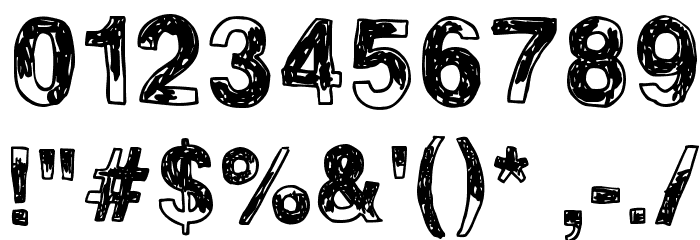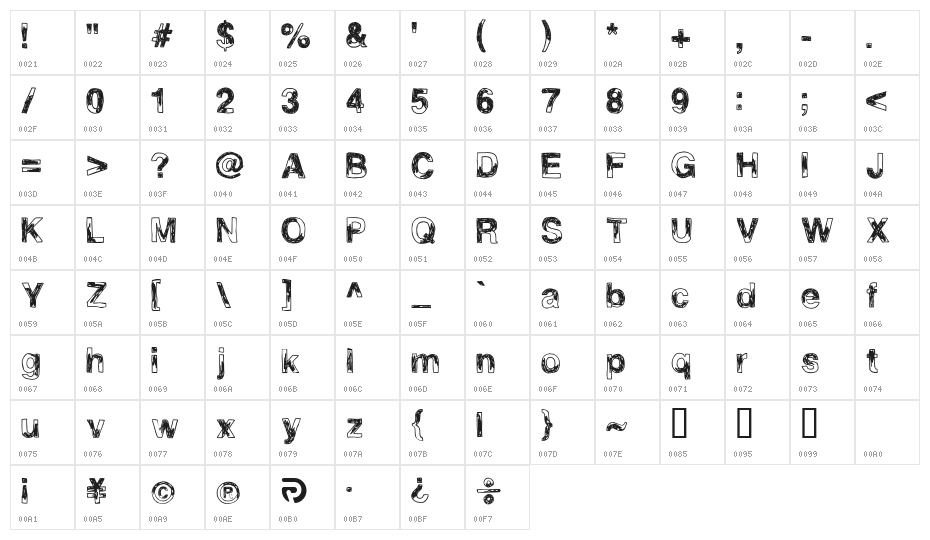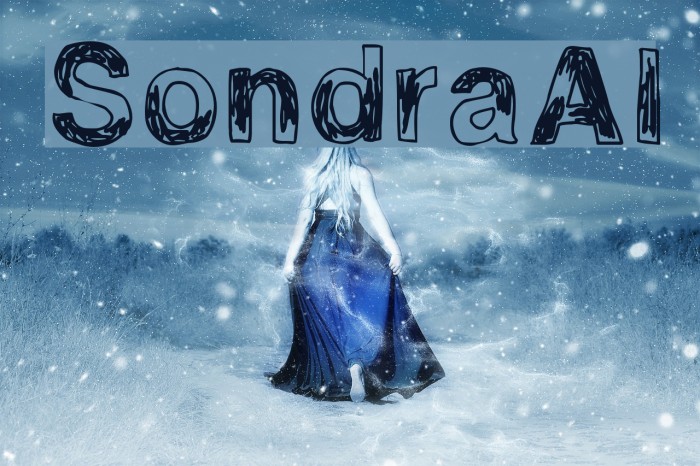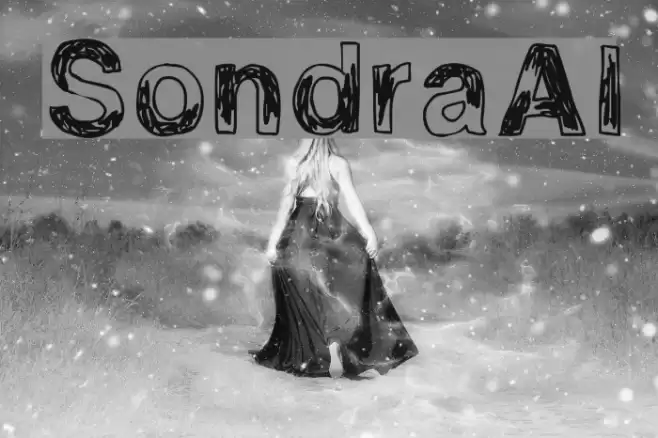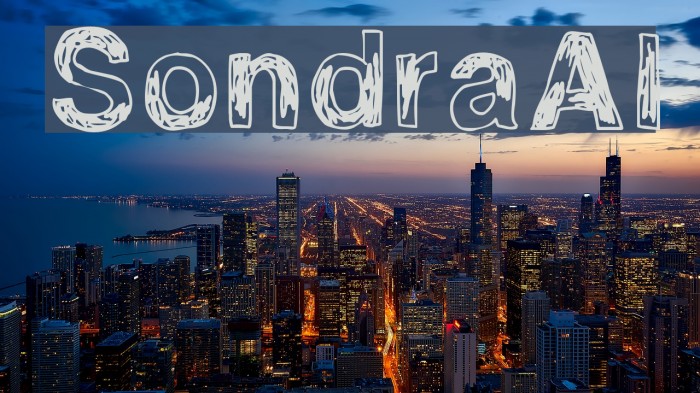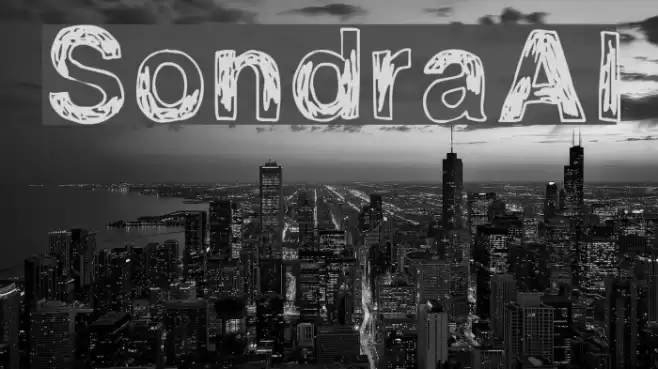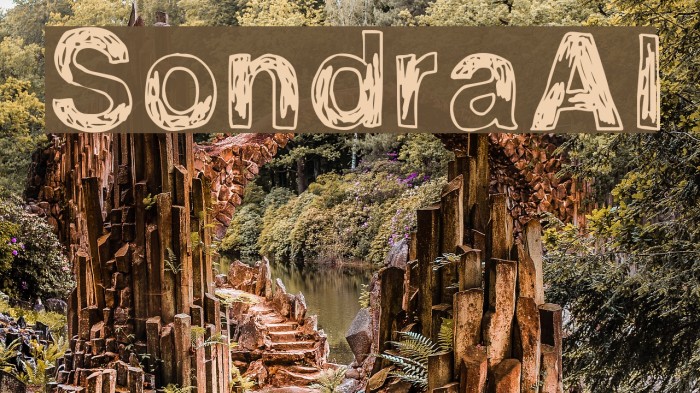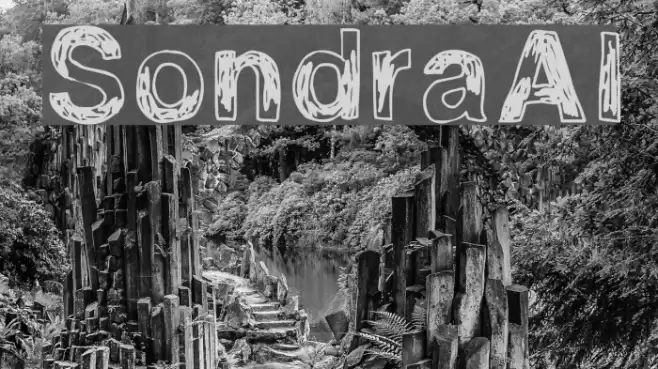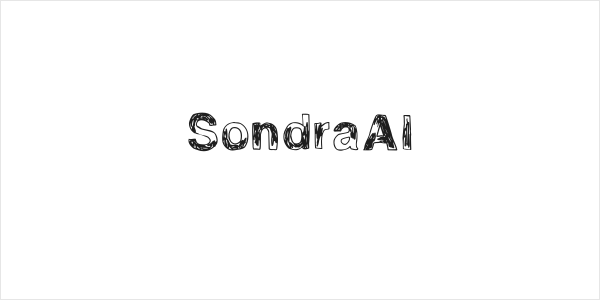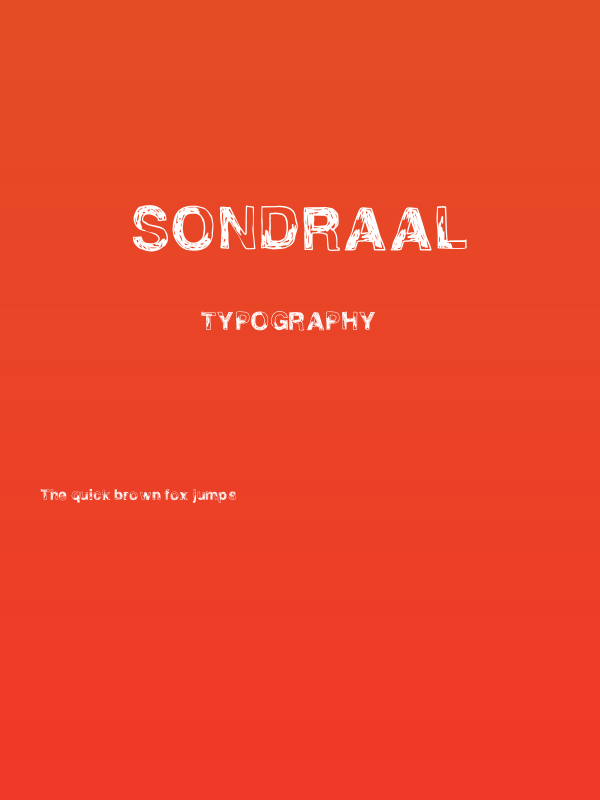
SondraAl Font
SondraAl Description
This font features a bold and playful design with a hand-drawn, sketch-like appearance. Each character is outlined with a rough, textured stroke that gives it a unique, artistic feel. The uppercase and lowercase letters maintain a consistent style, with rounded edges and a slightly irregular form that adds to the casual and creative vibe. Numbers and special characters follow the same design principles, ensuring a cohesive look across all elements. The font's distinct style makes it stand out, perfect for projects that require a touch of whimsy and individuality.
| Overall Style | Playful, Artistic |
| Proposed Projects | Ideal for children's books, creative posters, playful branding, and artistic invitations. |